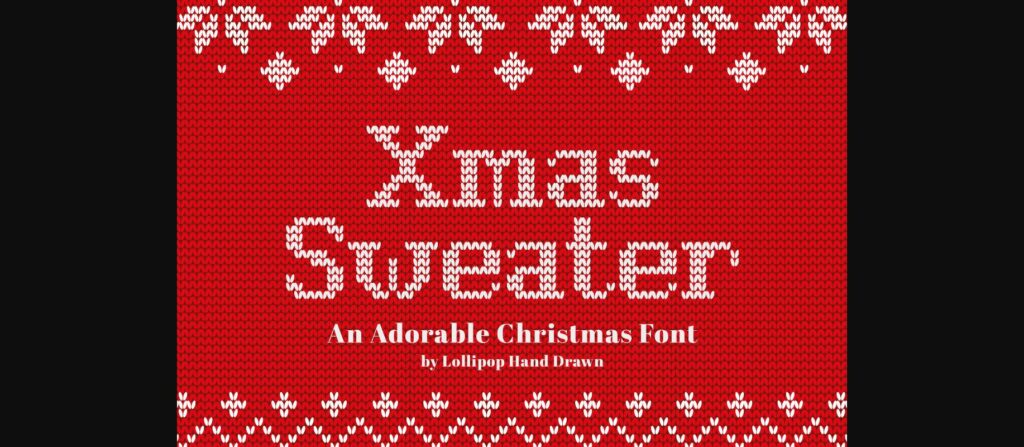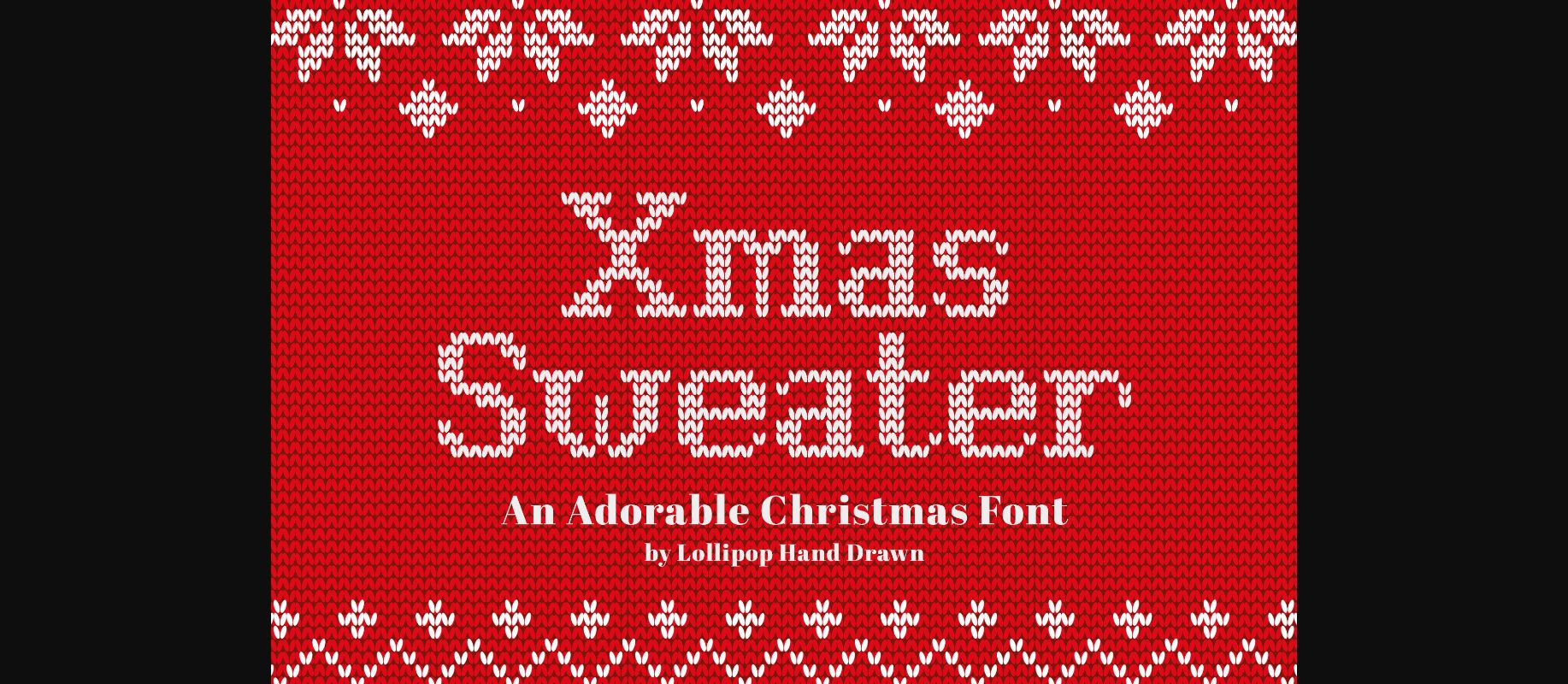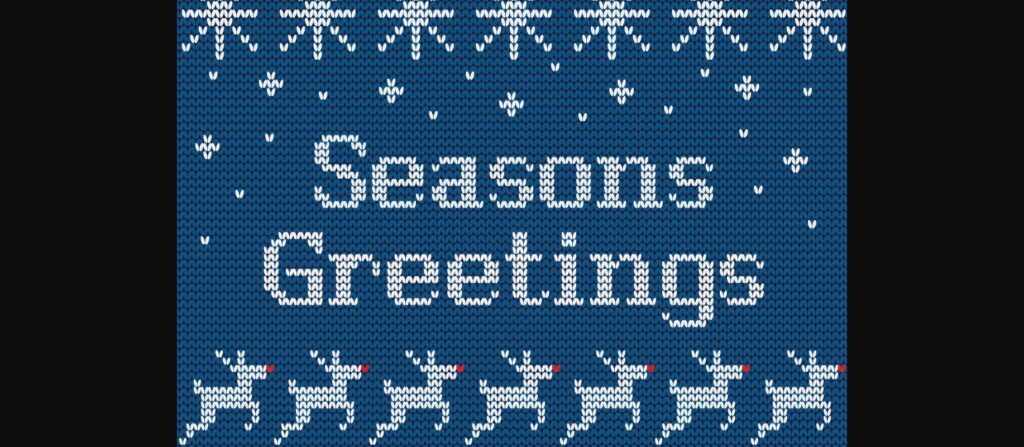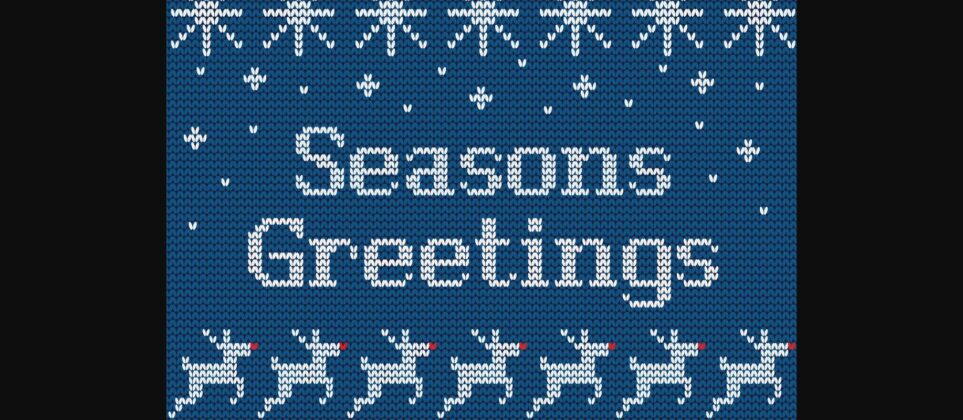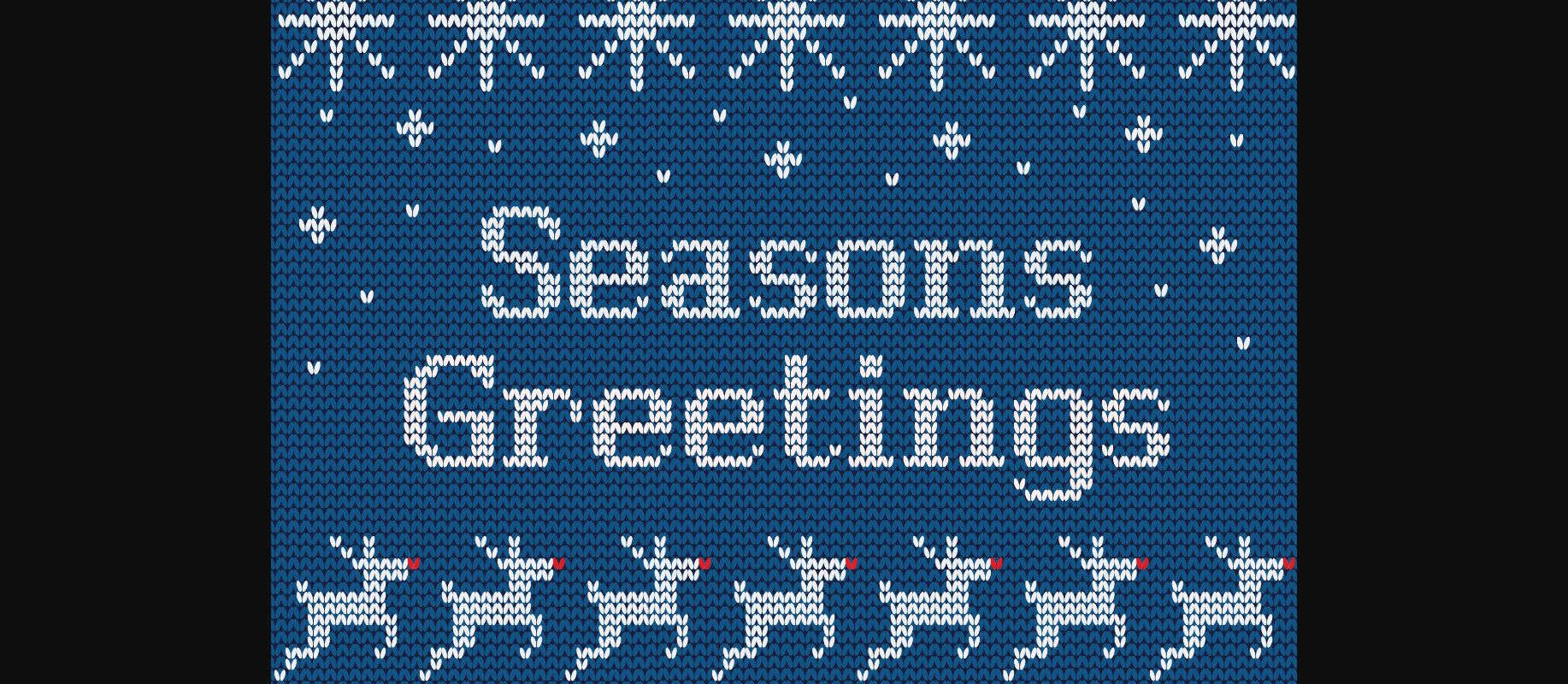
About Xmas Sweater Font
Add some fun winter vibes to your projects with this cool decorative font. Masterfully designed to become a true favorite, this font has the potential to bring each of your creative ideas to the highest level!